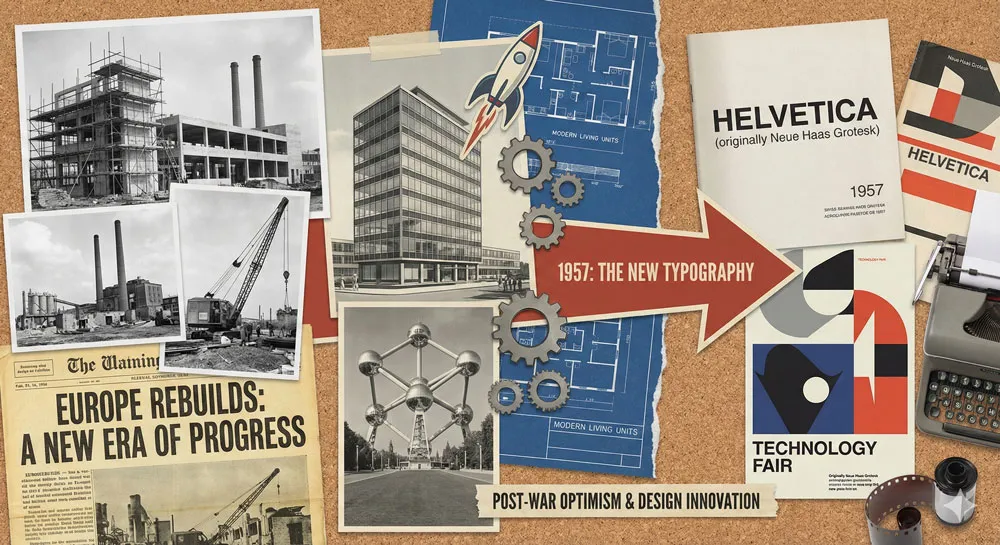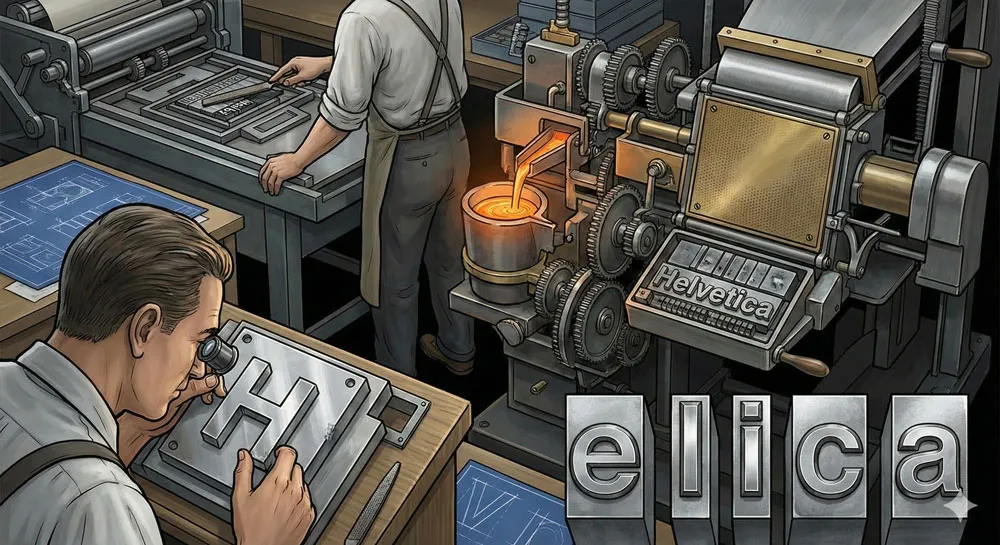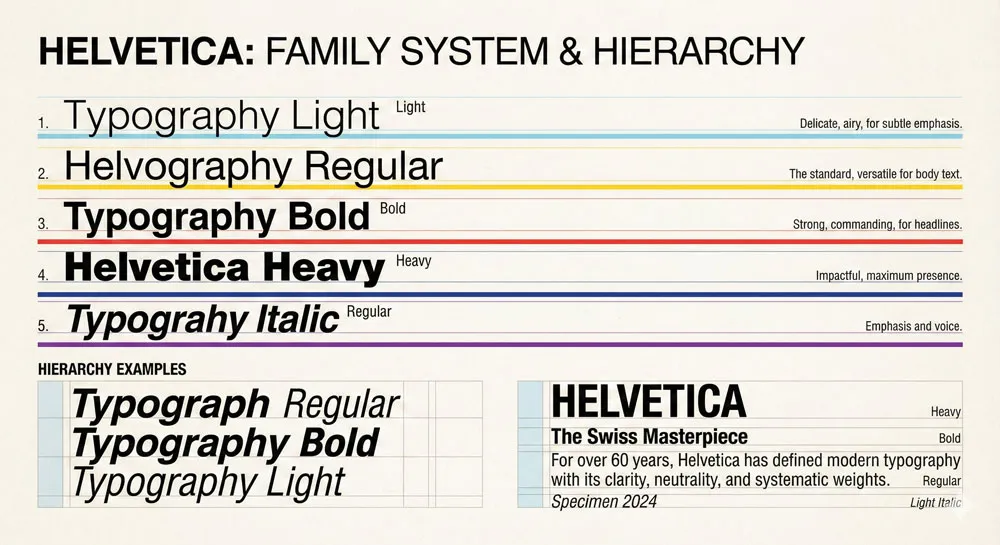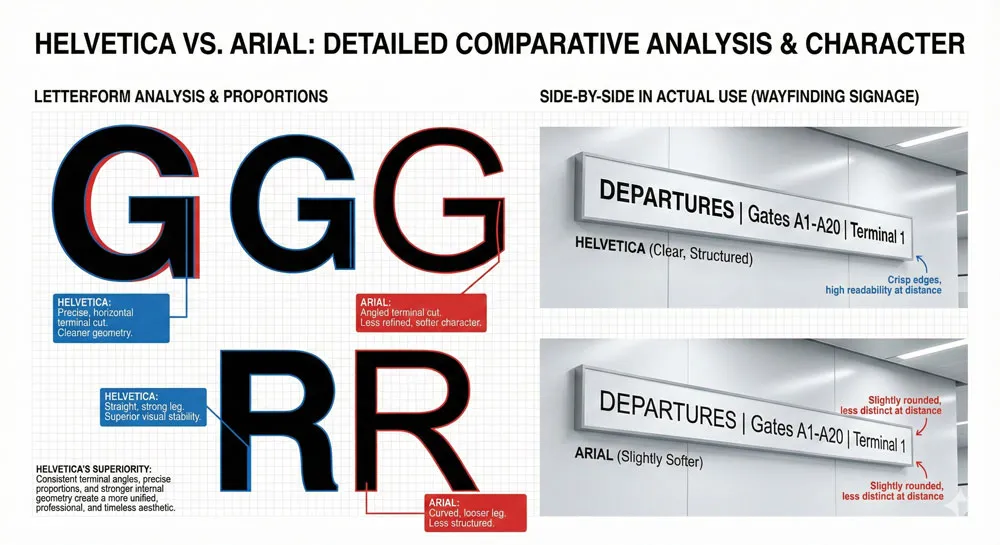
Explore how Helvetica became the world’s most ubiquitous typeface. Learn its history, design principles, cultural impact, and why it dominates branding and corporate identity worldwide.
Introduction: The Font That Became Invisible
In 1957, two Swiss designersโMax Miedinger and Eduard Hoffmannโcreated a typeface at the Haas Type Foundry in Mรผnchenstein, Switzerland. They called it Haas Grotesk. Within a year, Linotype licensed the typeface, renamed it Helvetica (after the Latin name for Switzerland), and launched it internationally.
No one predicted that this clean, geometric sans-serif would become the most recognizable, most widely used, and most culturally significant typeface in the history of typography.
Today, Helvetica is everywhere. It appears on subway systems, street signs, corporate logos, government documents, packaging, websites, and virtually every other visual medium.
It has become so ubiquitous that most people stop noticing it. It is the definition of invisible successโpresent everywhere yet perceived as a neutral backdrop rather than a deliberate design choice.
This paradox is at the heart of the “Helvetica Effect.” The typeface was so successful at communicating institutional authority and functional clarity that it essentially disappeared from conscious notice.
Yet this very invisibility reveals something profound about how typography works, how design shapes culture, and how a single artifact can reshape visual communication across an entire civilization.
This comprehensive exploration of Helvetica traces its origins in Swiss design philosophy, examines the technical and psychological reasons for its dominance, explores its cultural impact across industries and decades, addresses its imitators and competitors, and ultimately asks: what does Helvetica tell us about design, technology, and the invisible forces that shape how we see the world?
The Swiss Design Movement: Context for Helvetica’s Birth
Understanding Swiss Style Typography
To understand Helvetica, you must first understand the Swiss Design Movement that produced it. Swiss styleโalso called International Style or Swiss International Styleโemerged in Switzerland during the 1950s as a response to the excesses of 1920s and 1930s design movements.
While other design movements emphasized ornament, decoration, and individual expression, Swiss style emphasized clarity, order, and functional efficiency.
Swiss designers developed a philosophy grounded in grid systems, sans-serif typefaces, generous white space, and mathematical precision. The goal was not beauty in a traditional sense, but rather the clear communication of information.
Swiss style rejected the idea that design should be decorative or expressive. Instead, design should be transparentโit should communicate without calling attention to itself.
This philosophy emerged partly from Swiss culture and geography. Switzerland has multiple languages, multiple cultural regions, and a tradition of political neutrality. Swiss designers reasoned that typography and design should reflect these valuesโthey should be neutral, accessible to speakers of different languages, and capable of conveying information clearly without cultural baggage or decorative flourish.
Helvetica would become the ultimate embodiment of this Swiss design philosophy. As Simon Garfield notes in “Just My Type,” Helvetica and its Swiss cousin Univers both emerged in 1957 from Swiss foundries, and they “went out to shape the modern world.” They were not merely typefaces; they were manifestos. They were declarations that design could be rational, functional, and universal.
The Historical Context: Post-War Modernism
Helvetica did not emerge in a vacuum. It was born at a specific historical momentโthe 1950sโwhen post-war Europe was rebuilding itself, when modernism was triumphant, and when the design profession was establishing its intellectual foundations.
The 1950s were characterized by optimism about technological progress, faith in rational systems, and a belief that good design could improve human life. The International Style in architecture, emerging from the Bauhaus and Le Corbusier’s principles, embodied this belief.
Designers embraced grid systems, standardized components, and the elimination of ornamental excess. They believed that a well-designed chair, building, or system of visual communication could make the world more efficient, more beautiful, and more humane.
Helvetica emerged directly from this intellectual and cultural context. It represented the belief that a carefully designed sans-serif typeface could transcend national boundaries, language barriers, and cultural differences. It could be “Swiss”โneutral and rationalโwhile simultaneously being universal.
The post-war period was also characterized by rapid industrialization and the rise of corporate institutions. Large multinational corporations needed visual identities that communicated across borders. They needed typefaces that were neutral, professional, and widely available. Helvetica satisfied these needs perfectly.
The Haas Type Foundry and Swiss Craftsmanship
Before Helvetica became a global phenomenon, it had to be designed and manufactured. This process reveals important truths about the relationship between technology, craft, and typography.
The Haas Type Foundry, located in Mรผnchenstein, Switzerland, was one of Europe’s most respected type foundries. It had a long history of producing high-quality metal typeโphysical typefaces cast in metal that would be used in printing presses.
The foundry employed skilled craftspeople who understood not just the theory of type design but also the practical realities of manufacturing typefaces and the technical requirements of printing.
Max Miedinger, the lead designer of Helvetica, worked at the Haas foundry. He was not a famous designer with an international reputation; he was a working craftsperson embedded in the practical realities of type manufacturing.
This grounding in craft is important because it means that Helvetica was not a theoretical exercise or an artistic vision divorced from practical manufacturing constraints. It was a typeface designed with full awareness of how it would actually be manufactured and used.
Eduard Hoffmann, the director of Haas, contributed to the design philosophy. Hoffmann wanted to update and improve upon earlier geometric sans-serifs. He wanted a typeface that was clean and modern but also highly legible and practical for commercial printing. Miedinger translated these requirements into letterforms.
The result was a typeface that reflected Swiss design values: rational, legible, functional, and refined. But it was also a typeface that reflected the craft traditions of type manufacturingโit was designed to work beautifully when cast in metal and used in a printing press.
Related Topics:
- Gill Sans: Eric Gillโs Humanist Masterpiece
- Baskerville: Elegant Serif That Shaped Print Typography
- Bodoni Font: Serif That Defined Luxury Typography
The Design of Helvetica: Technical Mastery and Psychological Precision
The Geometric Foundation: Why Helvetica Looks “Swiss”
Helvetica’s visual characteristics emerge directly from Swiss design philosophy. The typeface is based on geometric principlesโits letterforms are derived from circles, squares, and simple mathematical relationships. This geometric foundation gives Helvetica its characteristic appearance: clean, rational, and seemingly “neutral.”
However, this geometric foundation is not as mathematically pure as it might initially appear. If you examine Helvetica’s letterforms closely, you notice subtle optical adjustments that deviate from pure geometry. These adjustmentsโwhich type designers call “optical compensation”โare precisely what make Helvetica so legible and aesthetically balanced.
For example, the circular letterforms (O, Q, C) are not mathematically perfect circles. They are slightly adjusted so that they appear optically balanced against the straight-sided letterforms (H, I, T). Similarly, the weight of the typeface is adjusted in subtle ways throughout the alphabet to ensure visual harmony.
This combination of geometric principles with subtle optical refinement is what makes Helvetica so successful. It appears rational and systematicโqualities that align with Swiss design philosophyโwhile actually incorporating sophisticated design judgment and craft knowledge.
The typeface is not a computer-generated geometric pattern; it is a carefully crafted design that uses geometric principles as a starting point and then refines them through human judgment and visual sensitivity.
Stroke Weight and Counter Space: The Helvetica Signature
One of Helvetica’s most distinctive characteristics is its consistent stroke weight and generous counter space (the internal white space within letterforms). Unlike serifs or humanist fonts that vary stroke weight dramatically, Helvetica maintains relatively consistent stroke width throughout the alphabet. This consistency communicates rationality and order.
The generous counter space contributes to Helvetica’s exceptional legibility. Letters like “a,” “e,” and “s” are instantly recognizable because their internal forms are clear and distinct. This is why Helvetica remains legible even at very small sizes, which was an important practical consideration in 1957 when photocopying and offset printing were new technologies that often degraded type quality.
The consistent stroke weight and generous counters also contribute to Helvetica’s psychological effect. The typeface feels stable, balanced, and trustworthy. It does not demand attention; instead, it creates a sense of calm, rational authority.
This combination of technical characteristics produces a specific psychological impactโthe feeling that you are being addressed by an institution that is organized, rational, and reliable.
The Family System: Flexibility Through Variation
One of Helvetica’s innovations was its comprehensive family of related typefaces. Helvetica was not released as a single weight; it was released as a family with multiple weights (Light, Regular, Bold, Heavy) and styles (Roman, Italic). This family system allowed designers to create visual hierarchy and variation while maintaining overall design coherence.
The Helvetica family system was revolutionary for its time. Earlier typefaces often had limited weight variations, which meant that designers could not create much visual variety with a single typeface family.
Helvetica’s comprehensive family system meant that designers could work with a single typeface across entire design systemsโnewspapers, corporate identities, signage systemsโcreating visual hierarchy and variation while maintaining consistency.
This family system was also technically significant. It demonstrated that a typeface could be systematizedโthat you could create multiple related versions according to rational principlesโwhile still maintaining visual quality and distinctiveness across all versions. This principle of systematic variation has become fundamental to contemporary type design.
Related Topics:
- Garamond: Timeless Serif That Defined Classical Typography
- The Worst Fonts in the World: A Typographic Hall of Shame
- Gill Sans and Tube: How Johnston and Gill Defined London
Helvetica’s Global Rise: From Swiss Foundry to Universal Standard
Linotype’s Role: Making Helvetica Available Worldwide
Helvetica’s journey from obscurity to ubiquity began with a corporate decision. Linotype, one of the world’s largest and most powerful type foundries, licensed Helvetica and launched it internationally in 1957.
This licensing decision was crucial because Linotype had the manufacturing capacity and distribution network to make Helvetica available not just in Switzerland, but worldwide.
Linotype also renamed the typeface from “Haas Grotesk” to “Helvetica”โa marketing decision that proved brilliant. The name “Helvetica” (derived from “Helvetia,” the Latin name for Switzerland) positioned the typeface as embodying Swiss design values.
The name communicated rationality, precision, and international neutrality. It was a name that evoked Swiss watches, Swiss banks, and Swiss precision engineering.
Linotype’s global distribution network meant that Helvetica became available to printing shops, design studios, and corporations worldwide. This was especially significant in America, where Linotype had a dominant market position.
American designers and corporations quickly adopted Helvetica because it communicated the qualities they valued: modernity, efficiency, and professional authority.
Corporate Adoption: The Rise of Helvetica as Corporate Standard
By the 1960s, Helvetica had become the default typeface for corporate branding and institutional communication. American corporations, in particular, embraced Helvetica as the typeface that communicated their values and identity.
The reasons for Helvetica’s corporate adoption are partly technical and partly psychological. Technically, Helvetica was widely available, easy to use, and worked well in printing and copying processes. Psychologically, Helvetica communicated qualities that corporations valued: rationality, efficiency, reliability, and forward-thinking modernity.
This period saw the rise of the modernist corporate identityโthe movement led by designers like Paul Rand, Saul Bass, and Ivan Chermayeff, who believed that a company’s visual identity should embody its corporate values and strategy.
These designers often relied on Helvetica because it was the typeface that most perfectly communicated the modernist values of rationality, clarity, and systematic organization.
Major corporations adopted Helvetica for their logos and branding: American Apparel, Bayer, BMW, Fendi, Hermรจs, Jeep, Kraft, Microsoft, Nestlรฉ, and hundreds of others.
Each corporation was making the same implicit choice: we want to be perceived as modern, rational, and professionally managed. Helvetica communicated this message better than any other typeface.
The Subway Revolution: Helvetica as Public Institution
One of the most iconic applications of Helvetica emerged in American cities: the adoption of Helvetica by public transit systems as the standard typeface for signage.
In New York, the Metropolitan Transportation Authority (MTA) adopted Helvetica for the redesigned subway system in the 1970s. In countless other citiesโWashington DC, San Francisco, Chicagoโpublic transit systems adopted Helvetica for wayfinding signage.
This adoption of Helvetica for public signage was significant for several reasons. First, it meant that Helvetica was no longer just a typeface used by corporations; it was a typeface used by public institutions to communicate with the general population. Every subway rider in New York, whether they knew anything about typography or not, was reading Helvetica daily.
Second, this application demonstrated Helvetica’s exceptional performance in real-world conditions. Helvetica remained legible at various distances, sizes, and viewing angles. It worked beautifully on illuminated signs, printed maps, and architectural applications. The typeface proved that it was not just theoretically rational but practically superior for complex communication systems.
Third, this public adoption of Helvetica by major American cities cemented its status as the typeface of American institutional authority. When you see Helvetica on a subway sign or a government document, you unconsciously receive a message: this is official, this is from a trustworthy institution, this information is important and accurate.
Government and Institutional Adoption
Following the corporate and public transit adoption of Helvetica, government institutions and large institutions worldwide adopted Helvetica as their standard typeface. The Federal Government of the United States adopted Helvetica (or Helvetica-like fonts) for official documents and communication. The British Government’s use of Helvetica signaled British adoption of modernist design principles.
The adoption of Helvetica by institutions reflects the broader acceptance of Swiss design philosophy by institutions worldwide. Helvetica became synonymous with institutional authority, bureaucratic efficiency, and neutral communication. When a government agency, a bank, or a large corporation needed to communicate with the public, Helvetica was the default choice.
This institutional adoption had an interesting psychological effect: Helvetica became so associated with institutional authority that it started to feel almost invisible. People did not consciously notice Helvetica on government documents or corporate letterheads; they simply absorbed the message: “This is official, this is trustworthy, this is important.”
Related Topics:
- Baskerville and Eaves: A Tale of Perfection, Passion and Revival
- Futura vs. The World: The Geometric Vision of Paul Renner
- Legibility vs. Readability: What Every Designer Needs to Know
The Digital Revolution: Helvetica in the Computer Age
The Transition from Metal Type to Digital Fonts
The transition from metal type to digital fonts in the 1980s and 1990s could have been the end of Helvetica’s dominance. Digital technology made it easy to create new typefaces and to distribute them widely.
Designers suddenly had access to thousands of typefaces they had never encountered before. The universal availability of fonts seemed to threaten the hegemony of a single typeface like Helvetica.
But something interesting happened: Helvetica actually became more dominant in the digital age, not less. As Helvetica was digitized and bundled with computer operating systems (Apple included Helvetica in its system fonts; Windows later released Arial, a close Helvetica derivative), it became even more widely used.
The reason Helvetica thrived in the digital age is revealing. Most digital fonts are technically inferior to well-designed metal typefaces. They are often poorly spaced, crudely hinted (the digital instructions that make fonts render correctly at small sizes), and aesthetically crude. By comparison, Helveticaโeven in its early digital incarnationsโrepresented sophisticated, refined design.
Moreover, digital technology did not replace the values that Helvetica embodied; it reinforced them. As companies built digital brands and corporate identities, they valued the same qualities that Helvetica communicated: clarity, efficiency, modernity, and reliability. Helvetica remained the default choice.
Arial and the Clone Wars
One significant development in the digital era was the creation of Arial by Monotype. Arial is a Helvetica derivativeโa typeface that closely mimics Helvetica’s design but makes minor modifications. Microsoft bundled Arial with Windows, making it widely available on Windows computers, just as Apple bundled Helvetica with the Macintosh.
The emergence of Arial sparked what designers call the “Helvetica vs. Arial” debate. Type designers argue that Arial is inferior to Helveticaโits proportions are less refined, its optical adjustments less subtle, its overall design less sophisticated. Arial exists largely because of licensing and business reasons (Monotype wanted to create a Helvetica alternative that they owned) rather than because it is a superior design.
However, Arial’s existence actually reinforced Helvetica’s status. The fact that Microsoft needed to create an Arial substitute rather than simply license Helvetica demonstrates Helvetica’s dominance.
Even as a clone, Arial could never quite match Helvetica’s quality or cultural status. Among designers and typographic professionals, Helvetica remains the gold standard; Arial is viewed as a pale imitation.
The Helvetica vs. Arial debate also reveals something interesting about typography in the digital age. Even as digital technology made typeface creation and distribution easy, quality still mattered. Helvetica’s superior design ensured its continued dominance, even in the face of free or cheaper alternatives.
Helvetica and the Web
The early web presented another potential threat to Helvetica’s dominance. Web browsers displayed text using system fontsโtypefaces installed on the user’s computer. This meant that web designers could not guarantee that their carefully chosen typeface would display on the user’s screen. If the user did not have Helvetica installed, the browser would substitute a different font.
This limitation led many web designers to use generic font namesโ”sans-serif,” “monospace”โwhich would fall back to whatever default sans-serif, serif, or monospace font the browser provided.
However, most operating systems were configured so that the default sans-serif font was Helvetica or Helvetica-like. This meant that even when web designers were not explicitly choosing Helvetica, the web often defaulted to Helvetica.
The development of web-safe fonts and later web font technologies (which allow designers to embed custom fonts in web pages) created more typographic diversity on the web. However, Helvetica’s cultural status meant that it remained a common choice for web design, particularly for corporate and institutional websites.
Related Topics:
- Secret Life of Symbols: History of Ampersand and Interrobang
- Helvetica โ Swiss Modernismโs Ubiquity Crisis
- Comic Sans โ Accessibility & Gatekeeping Critique
The Psychology of Helvetica: Why It Feels “Corporate” and “Official”
The Invisibility of Authority
One of the most interesting psychological characteristics of Helvetica is its invisibility. Most people cannot name Helvetica or describe its characteristics. Yet Helvetica is the most recognizable typeface in the world. This paradox reveals something profound about how typography communicates.
Helvetica communicates so efficiently that it becomes transparent. When you read Helvetica, you do not think about the typeface; you simply read the content.
The typeface does not call attention to itself; instead, it directs all attention to the message. This transparency is precisely what makes Helvetica so effective for institutional and corporate communication.
The psychology of this transparency is revealing. Helvetica makes viewers unconsciously believe that what they are reading comes from an organized, rational, and trustworthy source.
The typeface is not making this claim explicitly; it is communicating it implicitly through its visual characteristics and through the accumulated cultural associations of decades of institutional use.
Helvetica as the Voice of Authority
Because Helvetica has been used by governments, corporations, and institutions for over six decades, it has accumulated powerful psychological associations with authority and institutional power. When you see Helvetica, you unconsciously receive a message: this is official, this is from an important institution, this is trustworthy.
This psychological association is so strong that it has become almost independent of content. Helvetica could be used to communicate false information, yet the typeface itself would lend an aura of authority and trustworthiness to that information. This reveals the power of typography to shape how we perceive and interpret information.
The association of Helvetica with authority is also partly generational and cultural. For people who grew up in the 1960s-1980s, Helvetica is the typeface of official communication.
Government documents, corporate communications, institutional signsโthese were all printed in Helvetica. The accumulated experience of a lifetime of reading Helvetica in authoritative contexts creates a psychological association between the typeface and authority itself.
The Modernist Promise
Helvetica also communicates the promises of modernism. It embodies the belief that rational design can improve communication and human life.
It communicates that information should be clear, accessible, and free from unnecessary ornament or decoration. It suggests that well-designed systems can serve everyone equally.
This modernist promise is one reason that Helvetica appeals to institutions and corporations. By choosing Helvetica, an organization is implicitly claiming membership in a community of rational, well-designed institutions.
The typeface is a way of saying: “We are modern, we are efficient, we are designed with care and attention to clarity.”
However, this modernist promise has also made Helvetica a target of criticism. Critics argue that Helvetica’s ubiquity represents the hegemony of corporate modernismโa homogenization of visual culture in service of institutional control.
If everywhere looks like Helvetica, then everywhere looks like an institution. If all official communication is printed in Helvetica, then the visual world becomes increasingly corporate and institutional rather than personal or individual.
Related Topics:
- Gotham โ Political Design & Elections Power
- Futura โ Geometric Modernism Revolution
- Gill Sans โ Humanist Alternative Modernism
The Helvetica Documentary: Cultural Reckoning and Criticism
2007: Gary Hustwit’s Film Examines Helvetica
In 2007, filmmaker Gary Hustwit released a feature-length documentary titled simply “Helvetica.” The film examined the typeface’s history, cultural impact, and contested legacy. It featured interviews with type designers, graphic designers, architects, and cultural critics who offered diverse perspectives on Helvetica.
The film is significant because it raised questions about Helvetica that had been largely unexamined in popular culture. Was Helvetica a triumph of modernist design that had genuinely improved communication? Or was it a symbol of corporate conformity and the erasure of individual expression? Was Helvetica’s ubiquity a sign of its excellence, or evidence of a design monoculture?
The documentary revealed that these questions generated genuine disagreement among design professionals. Some designers viewed Helvetica as a masterpieceโa typeface so well-designed that it achieved its goal of transparent, efficient communication. These designers celebrated Helvetica’s ubiquity as evidence of its success.
Other designers viewed Helvetica’s dominance with suspicion or even hostility. They argued that Helvetica had become so ubiquitous that it represented a limitation on visual diversity and creative expression.
They saw Helvetica’s use as representing a capitulation to corporate design values. Some of these designers argued for the deliberate rejection of Helvetica in favor of more distinctive, challenging typefaces.
The Case for Helvetica: Design Excellence and Functional Perfection
The defenders of Helvetica made a powerful case. They argued that Helvetica’s success was not accidental; it was the result of superior design. Helvetica achieved optical balance, legibility, and functional efficiency in a way that few other typefaces have matched.
Moreover, defenders argued that Helvetica’s ubiquity was not evidence of conformity but rather evidence of merit. If Helvetica was so widely adopted, it must be because designers and institutions recognized its excellence. The typeface was not forced upon the public; it was chosen repeatedly by millions of decisions across decades.
Defenders also argued that criticizing Helvetica for being used by corporations and institutions was misdirected. Of course corporations and institutions use Helveticaโthey should!
These organizations have a responsibility to communicate clearly and efficiently with the public. Helvetica enables this clear communication. Using a more distinctive or challenging typeface would be putting design values above communication values, which is arguably irresponsible.
Furthermore, defenders noted that Helvetica’s availability actually democratized design. Before Helvetica became a digital font bundled with computer operating systems, it was available primarily to professional designers and large corporations.
The digitization of Helvetica meant that small businesses, nonprofits, and individuals could access a world-class typeface that had previously been unavailable to them.
The Case Against Helvetica: Conformity and Visual Homogenization
Critics of Helvetica offered a different perspective. They argued that while Helvetica might be excellently designed, its ubiquity had created a visual monoculture. If all institutions used Helvetica, then all institutions looked the same. Visual diversity was being erased in the name of functional efficiency.
Critics also questioned whether Helvetica’s transparency was entirely positive. Yes, Helvetica communicates efficiently, but this efficiency came at the cost of personality and character.
A typeface with more personality might communicate additional meanings beyond the literal text. By choosing a neutral typeface like Helvetica, designers were making a choice to eliminate expressive or emotive dimensions of communication.
Furthermore, critics argued that Helvetica’s association with institutional authority was not incidental; it was the result of decades of deliberate use by institutions seeking to establish authority and control.
By choosing Helvetica, institutions were tapping into the psychological power of the typeface to suggest institutional legitimacy. This was not bad design; it was powerful designโperhaps too powerful. It was design used as an instrument of institutional control.
Critics also noted that Helvetica’s universality was not as universal as it appeared. Helvetica worked well for certain contextsโparticularly corporate and governmental contexts in Western countries.
For other contextsโintimate communication, artistic expression, subcultural identityโother typefaces might be more appropriate. Yet Helvetica’s dominance meant that designers often defaulted to Helvetica even when other choices might have been more meaningful.
Synthesis: Beyond the Binary
The most interesting perspective emerged not from defenders or critics of Helvetica, but from designers and thinkers who attempted to synthesize both positions. They argued that Helvetica deserves recognition as an excellent typeface, but this recognition should not preclude critical examination of its role in shaping visual culture.
Helvetica is evidence both of excellent design and of the hegemony of corporate modernism. Both statements are true. Helvetica’s success demonstrates that good design mattersโthat careful attention to proportion, legibility, and visual balance creates a typeface that functions better than alternatives.
Yet Helvetica’s ubiquity also demonstrates how design choices can gradually homogenize visual culture, creating a world where all official communication looks similar.
The challenge, then, is not to reject Helvetica but to use it more thoughtfully. Helvetica is an appropriate choice for many contextsโcorporate branding, institutional signage, public communication where clarity is paramount.
However, it should not be the default choice for all contexts. For intimate communication, artistic expression, and contexts where personality and distinctiveness matter, other typefaces are often more appropriate.
Related Topics:
- Baskerville โ Print Excellence & Love Story
- Bodoni โ Theatrical Prestige Aesthetics
- Garamond โ Classical Foundation Principles
Helvetica Across Industries: From Fashion to Finance
Corporate Branding: Helvetica as the Default
The most obvious application of Helvetica is corporate branding. Hundreds of major corporations and brands use Helvetica as their primary typeface: American Apparel, Bayer, BMW, Crate and Barrel, Evian, Fendi, Hermรจs, Jeep, Kraft, Levis, Microsoft, Motorola, Nestlรฉ, The North Face, Panasonic, and Toyota, among many others.
The prevalence of Helvetica in corporate branding reflects the values that corporations seek to communicate: modernity, efficiency, reliability, and professional expertise. When a corporation chooses Helvetica, it is making an implicit claim about its identity and values. The typeface is saying: “We are organized, we are modern, we are trustworthy.”
However, Helvetica’s prevalence in corporate branding also raises questions about brand differentiation. If multiple corporations use Helvetica, does this undermine each corporation’s ability to establish a distinctive visual identity? Or does the quality and excellence of Helvetica as a typeface transcend this concern?
Different corporations answer this question differently. Some corporations use Helvetica as their primary typeface but differentiate through other design elementsโcolor, layout, logo design. Others have moved away from Helvetica toward more distinctive or custom typefaces that help them stand out in a crowded corporate landscape.
Technology and Innovation: Helvetica as the Future
Technology companies have long embraced Helvetica as the typeface that communicates innovation and forward-thinking progress. Apple, Google, Microsoft, IBM, and other tech giants have all used Helvetica or Helvetica-derived fonts in their branding and interface design.
The association of Helvetica with technology is revealing. Helvetica emerged as a modernist typeface grounded in rational design principles. These same valuesโrationality, efficiency, systematic thinkingโare valued in technology and computer science. Helvetica communicates that a technology company is thinking rationally about its design and user experience.
However, some contemporary tech companies have moved away from Helvetica toward custom typefaces. Google developed Roboto, an open-source sans-serif typeface designed specifically for screen use.
Facebook commissioned Helvetica Neue substitutes but eventually developed more distinctive approaches to typography. This evolution suggests that even in technology, companies are seeking to establish more distinctive visual identities rather than defaulting to Helvetica.
Luxury and Fashion: The Paradox of Helvetica Elegance
One of the most interesting applications of Helvetica is its use in luxury and fashion branding. Brands like Hermรจs, Fendi, and Celine use Helvetica or closely related typefaces in their branding. This might seem paradoxicalโdoesn’t luxury usually demand ornate, distinctive, hand-crafted typefaces?
However, the use of Helvetica in luxury branding reveals something subtle about how luxury brands communicate. Luxury brands often eschew obvious decoration and ornament in favor of refined simplicity. The idea is that true luxury does not need to announce itself through flashy typography; it communicates through restraint and elegance.
Helvetica is a perfect vehicle for this communication of refined simplicity. Its clean, geometric forms communicate that the brand is confident in its quality and does not need ornate decoration to establish its status. The choice of Helvetica paradoxically communicates sophistication and exclusivity precisely because it seems so understated.
Government and Institutions: Helvetica as Official
Government agencies, public transit systems, educational institutions, and large bureaucratic organizations have long relied on Helvetica for public communication. When you walk into a government office, ride the subway, or check into a hospital, you are likely reading Helvetica.
The use of Helvetica in these contexts communicates official authority and trustworthiness. Citizens unconsciously absorb the message: this is an official institution, the information I am reading is accurate and reliable. Helvetica makes government and institutions feel organized and well-designed.
However, this raises interesting questions about the relationship between typeface and institutional power. Does Helvetica make institutions more trustworthy, or does it exploit our psychological associations to create an illusion of trustworthiness?
When a government or institution uses Helvetica, is it doing so because Helvetica genuinely communicates clearly, or because Helvetica lends an aura of authority that makes citizens more likely to accept official information without question?
Related Topics:
- Worst Fonts โ Criticism & Gatekeeping Analysis
- Gill Sans & The Tube โ Urban Identity Infrastructure
- Baskerville & Mrs. Eaves โ Love, Partnership & Revival
Helvetica Criticism: The Countermovement and Alternatives
The Anti-Helvetica Movement
Not all designers have embraced Helvetica. Beginning in the 1980s and accelerating in the 1990s-2000s, some designers deliberately rejected Helvetica in favor of typefaces that were more distinctive, challenging, or expressive.
This anti-Helvetica movement was partly aesthetic (these designers simply preferred other typefaces), partly ideological (they viewed Helvetica as representing corporate conformity), and partly generational (younger designers wanted to establish their own design voice rather than defaulting to earlier generations’ choices).
The anti-Helvetica movement created typefaces and design movements that emphasized alternative values: distinctiveness, personality, playfulness, and cultural specificity. Designers like David Carson, Neville Brody, and others created provocative, challenging designs that consciously rejected Helvetica’s transparency and rationality.
This countermovement is significant because it demonstrates that Helvetica’s dominance was never absolute. Alternative typefaces existed, designers used them, and distinct visual cultures emerged that were not based on Helvetica.
The fact that these alternatives remained minority positions testifies to Helvetica’s enduring appeal, but the countermovement shows that different design philosophies were always possible.
Alternative Sans-Serifs: Choices Beyond Helvetica
For designers seeking to move beyond Helvetica, numerous alternatives exist. Each offers different visual characteristics and psychological effects:
- Univers (designed by Adrian Frutiger, also released in 1957) is Helvetica’s closest competitor. Univers is equally rational and modern but offers slightly different proportions and a more extensive family system. Univers has slightly more personality than Helveticaโit feels marginally warmer and more humanistic, though the difference is subtle.
- Futura (designed by Paul Renner in the 1920s) is a more geometric, condensed sans-serif that communicates a different kind of modernityโone associated with technological optimism and futurism. Futura feels more distinctive and personality-driven than Helvetica.
- Gill Sans (designed by Eric Gill in the 1920s) is a humanist sans-serif that retains characteristics of handwriting while maintaining geometric clarity. Gill Sans communicates warmth and accessibility without sacrificing modernity.
- Gotham (designed by Tobias Frere-Jones) is a contemporary geometric sans-serif that combines American vernacular design with refined craftsmanship. Gotham communicates forward-thinking optimism and has become popular with tech companies and political campaigns.
- Verdana and Georgia (designed by Matthew Carter for screen use) are typefaces specifically optimized for digital display. They communicate clarity and accessibility and have become the defaults for web design.
Each of these alternatives offers designers choices beyond Helvetica. A designer choosing Univers instead of Helvetica is making a subtle but meaningful statement. They are saying: “I want the same rational, modern aesthetic as Helvetica, but with slightly different proportions and personality.”
The “Bad Helvetica” Phenomenon: When Helvetica Goes Wrong
Interestingly, criticism of Helvetica has sometimes emerged not because Helvetica is inherently bad, but because Helvetica is often used badly. Helvetica is such a good, functional typeface that it is easy to use it competently even with minimal design skill.
This has led to countless examples of poor Helvetica useโbad spacing, inappropriate sizing, layouts that do not take advantage of Helvetica’s qualities.
When you see poorly designed Helvetica, the typeface’s weaknesses become apparent. Helvetica’s dependence on generous spacing and careful sizing means that when these factors are neglected, Helvetica can look cramped and generic.
This has led some critics to blame Helvetica for bad design that is really the responsibility of the designer’s poor execution.
This phenomenon reveals an interesting truth: an excellent typeface in the hands of a skilled designer creates excellent results, but the same typeface in the hands of an unskilled designer can look generic or even bad.
Helvetica has been democratized to the point where it is used by people with minimal design training, and this has led to countless examples of mediocre Helvetica use.
Related Topics:
- Futura & Paul Renner โ Geometric Vision & Revolution
- Legibility vs. Readability โ Typography Fundamentals
- Ampersand & Interrobang โ Symbol Histories
The Digital Era: Helvetica in Contemporary Design
Helvetica Neue: The Digital Upgrade
In 1983, Linotype released Helvetica Neue, a comprehensive redesign of the original Helvetica optimized for digital printing and photocomposition. Helvetica Neue updated and refined the original design while maintaining its core characteristics. Helvetica Neue became the standard version of Helvetica used in contemporary design.
The release of Helvetica Neue raised interesting questions: is Helvetica Neue an improvement on the original Helvetica, or is it a dilution of the original design? Some purists argued that the original Helvetica had a character and refinement that Helvetica Neue lacked. Others argued that Helvetica Neue was a necessary evolution of the typeface for new printing and design technologies.
This debate reveals something interesting about how we relate to design classics. Once a design becomes culturally significant, every update or revision generates debate. People become attached to specific versions of designs, and changes to those designs feel like potential betrayals or corruptions.
Helvetica in Contemporary Graphic Design
In contemporary graphic design, Helvetica occupies an interesting position. It remains widely used, particularly by corporations and institutions seeking to communicate authority and professionalism. Yet younger designers often view Helvetica as somewhat dated or clichรฉd. They seek typefaces that feel more distinctive or expressive.
However, Helvetica has also undergone a kind of cultural rehabilitation. Some contemporary designers deliberately choose Helvetica as a reaction against trendy typeface choices. They argue that Helvetica’s stability and refinement make it a better choice than ephemeral trend-driven typefaces.
This position is sometimes called “neo-modernism” or “updated modernism”โa deliberate embrace of modernist design principles combined with contemporary design sensibility.
Helvetica and Web Design: The Screen Era
In web design, Helvetica’s dominance has been somewhat diluted by the proliferation of web-safe fonts and web font technologies. However, Helvetica (or Helvetica alternatives) remains widely used for web design, particularly in corporate and institutional contexts.
The challenge of Helvetica on screens (as opposed to print) is that screen rendering of Helvetica can look less refined than printed Helvetica. The pixels of digital displays can make Helvetica’s delicate proportions look harsh or overly geometric.
This has led some web designers to choose typefaces specifically designed for screen use, like Verdana or custom web fonts optimized for screen display.
However, many web designers continue to use Helvetica variants for web design because of the typeface’s cultural status and psychological associations. Even if Helvetica looks less refined on screen than in print, it still communicates the professional authority and institutional power that organizations seek to project.
Related Topics:
Helvetica’s Legacy: Lessons About Design, Culture, and Ubiquity
What Helvetica Teaches Us About Design Excellence
Helvetica’s 65+ year dominance offers profound lessons about design excellence. First, Helvetica demonstrates that superior design can create lasting impact.
Helvetica was not imposed by decree; it was adopted repeatedly by millions of designers and institutions because they recognized its quality. This suggests that good design mattersโthat careful attention to proportion, legibility, and functional efficiency creates work that stands the test of time.
Second, Helvetica demonstrates the power of systematic thinking in design. Helvetica’s family system, its logical structure, and its rational design principles enabled it to be applied across countless contexts while maintaining visual coherence.
This systematic approach to design has influenced how contemporary designers think about typefaces and design systems.
Third, Helvetica demonstrates that transparent designโdesign that does not call attention to itselfโcan be more powerful than design that seeks to express the designer’s personality. Helvetica’s invisibility is its strength.
By getting out of the way, Helvetica enables clear communication. This has influenced how many contemporary designers think about user experience and communication design.
What Helvetica Teaches Us About Cultural Homogenization
However, Helvetica also teaches cautionary lessons about cultural homogenization. If one typeface becomes so dominant that it is used in almost all institutional and corporate communication, the visual landscape becomes homogenized.
Every subway system, every corporate logo, every government document looks similar. This homogenization, while efficient, comes at the cost of visual diversity and distinct cultural expression.
Helvetica demonstrates how design choices can reshape visual culture at scale. When millions of design decisions are made using the same typeface, the cumulative effect is a fundamental transformation of how the visual world looks.
This raises important questions: Is the homogenization created by Helvetica’s dominance a positive development (efficient, rational, reducing visual noise) or a negative development (suppressing diversity, enforcing conformity, erasing alternative visual cultures)?
The answer is likely both. Helvetica’s ubiquity has genuine benefitsโit has enabled clear communication across institutions. Yet it has also created a visual landscape that reflects particular design values (rationality, efficiency, institutional authority) while marginalizing other values (distinctiveness, personality, cultural specificity).
The Principle of “Good Enough”
Helvetica also teaches us about the principle of “good enough.” In many contexts, designers choose Helvetica not because it is the theoretically perfect choice for that specific application, but because Helvetica is “good enough.”
It will work well in almost any context. It communicates clearly. It is familiar and trustworthy. Why take the risk of choosing a less familiar typeface when Helvetica will almost certainly work?
This “good enough” principle has profound implications. It suggests that in design, as in other fields, practitioners often default to solutions that are safe and proven rather than seeking optimal solutions for specific contexts.
Helvetica’s existence enables this defaulting. The availability of an excellent, widely-trusted typeface means that designers can rely on Helvetica rather than thinking through whether a different typeface might be more appropriate for their specific context.
This principle is not necessarily negative. Sometimes “good enough” really is good enough. Sometimes the safest choice is the best choice. However, the prevalence of “good enough” thinking can also suppress design innovation.
If designers always choose Helvetica, they never explore whether other typeface choices might be more meaningful or effective in specific contexts.
Related Topics:
Helvetica and Globalization: The International Typeface
Helvetica as a Globalizing Force
One of Helvetica’s most significant roles has been as a typeface of globalization. As multinational corporations expanded globally in the 1960s-1990s, they often adopted Helvetica as their global typeface.
Helvetica was available worldwide, it communicated across language barriers, and it represented values that were appealing to institutions seeking to present themselves as modern, rational, and internationally oriented.
The adoption of Helvetica by global corporations has been part of a broader process of visual globalization. As multinational companies expanded, they brought their visual identities with them. Helvetica became a visual symbol of globalizationโof the worldwide spread of modernist design values and corporate capitalism.
This role of Helvetica in globalization is significant because it reveals how design is not politically or culturally neutral. When a global corporation presents itself using Helvetica, it is presenting a specific cultural perspectiveโa Swiss-derived, modernist, Western design philosophy.
This visual language, while presented as universal and neutral, actually represents particular cultural values.
Helvetica and Linguistic Diversity
One interesting aspect of Helvetica’s role in globalization is its relationship to linguistic diversity. Helvetica was designed to work across multiple languages without losing its character.
The typeface’s geometric neutrality meant that it functioned equally well with Latin characters, and it could theoretically be adapted for other writing systems.
This linguistic adaptability was important for Swiss design philosophy. Switzerland has four official languages, and Swiss designers wanted typefaces that could serve all linguistic communities equally well. Helvetica’s success across languages contributed to its global appeal.
However, the assumption that Helvetica could be applied to any language and culture without modification has been criticized. Different languages have different typographic requirements.
Arabic requires different spacing and flow than Latin characters. Chinese characters have different visual properties than alphabetic characters.
Applying the same Helvetica solution to all languages and contexts can suppress the specific visual requirements of different writing systems and cultures.
Related Topics:
FAQ: Common Questions About Helvetica
Q: Is Helvetica really everywhere?
A: Helvetica is extraordinarily ubiquitous, but not truly “everywhere.” Many contemporary designers deliberately choose alternative typefaces. However, Helvetica remains the default choice for many corporations and institutions, and its variants are used so widely that you encounter Helvetica regularly in daily life.
Q: Why is Helvetica so popular if it’s “boring”?
A: Helvetica is not popular because it is boring; it is popular because it is excellent. Its refined proportions, exceptional legibility, and comprehensive family system make it one of the best-designed typefaces ever created. What some perceive as “boring” is actually sophisticated design that effectively communicates without calling attention to itself.
Q: Can I use Helvetica for my small business?
A: Absolutely. Helvetica works well for most applicationsโbusiness correspondence, signage, branding, and printed materials. However, consider whether Helvetica is the best choice for your specific context. Does Helvetica communicate what you want to communicate about your business? Would a different typeface be more distinctive or better aligned with your brand personality?
Q: What’s the difference between Helvetica and Arial?
A: Arial is a Helvetica clone created by Monotype. It shares many visual characteristics with Helvetica but differs in subtle proportions and details. Most designers prefer Helvetica to Arial because Helvetica’s proportions are more refined. However, for most practical purposes, the differences between Helvetica and Arial are subtle and might not matter for your specific application.
Q: Is Helvetica outdated?
A: Helvetica is neither outdated nor trendy. It occupies a position as a “classic” typefaceโwidely recognized and respected, but also perceived by some as dated or clichรฉd. Whether Helvetica is appropriate for your project depends on the specific context and your brand identity.
Q: Should I use Helvetica Neue or original Helvetica?
A: Helvetica Neue is the contemporary standard version of Helvetica. Unless you have a specific reason to use original Helvetica, Helvetica Neue is the better choice because it is optimized for digital printing and contemporary use.
Q: Can I use Helvetica on my website?
A: You can specify Helvetica in your website’s typography, but it will only display if the user has Helvetica installed on their computer. Most operating systems include Helvetica or similar fonts, so your Helvetica specification will likely work. However, it is good practice to specify fallback fonts in case Helvetica is not available.
Q: Does font choice really affect how people perceive my message?
A: Yes, font choice significantly affects perception. Research demonstrates that people perceive the same message differently depending on the typeface used. This is not just about legibility; it is about the psychological and cultural associations people have with different typefaces.
Q: Is it wrong to use Helvetica?
A: No, it is not wrong to use Helvetica. It remains an excellent typeface that works well in many contexts. However, use it intentionally rather than defaulting to it simply because it is the most familiar option. Consider whether Helvetica is the best choice for your specific communication goals, audience, and context.
Related Topics:
Conclusion: The Typeface That Became a Symbol
Helvetica is more than a typeface. It is a symbol of modernist design philosophy, the spread of corporate capitalism, globalization, and the invisible forces that shape visual culture.
It is evidence that excellence in design mattersโthat a carefully designed typeface can achieve extraordinary longevity and impact. It is also evidence of cultural homogenizationโof how design values can gradually reshape visual landscapes at scale.
Helvetica’s 65-year dominance reveals profound truths about design, technology, and culture. Good design persists. Systematic thinking enables broad application. Transparency can be more powerful than personality.
Yet these positive lessons about design excellence are inseparable from questions about conformity, corporate power, and the homogenization of visual culture.
The future of Helvetica is uncertain. Contemporary designers have more options than ever beforeโthousands of typefaces are available digitally at minimal cost. Yet Helvetica persists.
New generations of designers continue to use Helvetica because they recognize its quality. Helvetica remains the default choice in many institutional and corporate contexts because it communicates authority and reliability so effectively.
Perhaps the most important lesson Helvetica teaches is that design choices matter. Every typeface choice is a choice about what values to communicate, what aesthetic to adopt, what visual culture to create.
When you choose Helvetica, you are making a specific choice about meaning and identity. When you choose something else, you are making a different choice. The key is to make these choices intentionally, with full awareness of their implications.
As you encounter Helvetica in your daily lifeโon subway signs, corporate letterheads, government documents, websites, and countless other contextsโremember that this typeface is not neutral. It is communicating. It is shaping your perception and the perception of everyone around you.
Understanding Helvetica’s history and psychology makes you a more conscious consumer of visual culture and, if you are a designer, a more thoughtful creator of it.